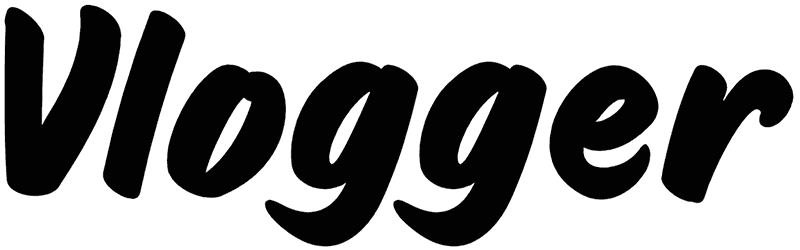
Vlogger Font
Do you love the outward with modern and polished brush lettering? Vlogger is a maker font with a bold and smooth face. For a lot of projects with different subjects, Vlogger can be harmonized well. As a script font, this…
Do you love the outward with modern and polished brush lettering? Vlogger is a maker font with a bold and smooth face. For a lot of projects with different subjects, Vlogger can be harmonized well. As a script font, this will be a captivating display for your upcoming projects, like cosmetics ads, business cards, logotypes, and so forth.